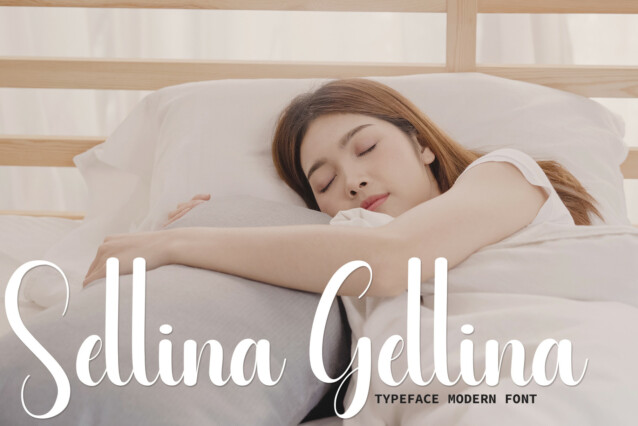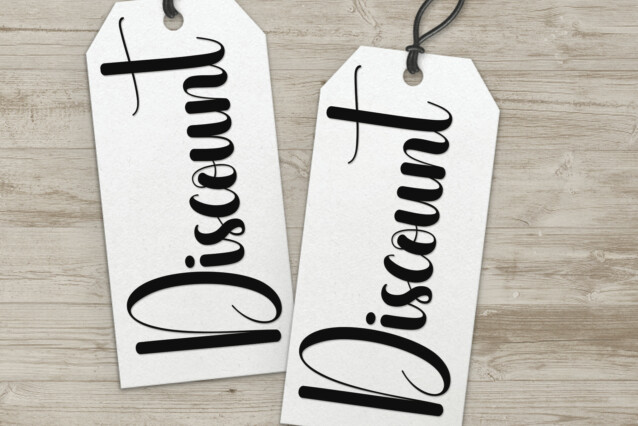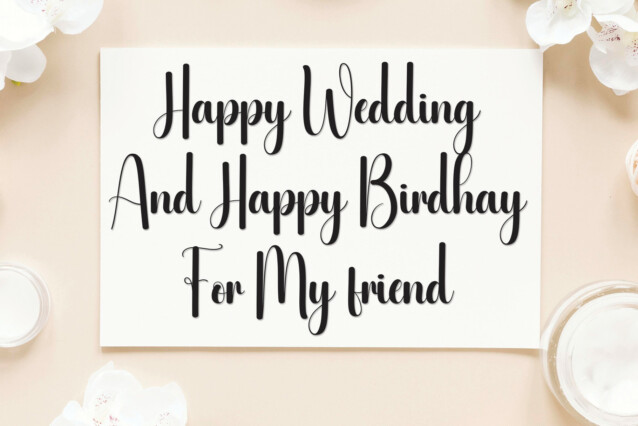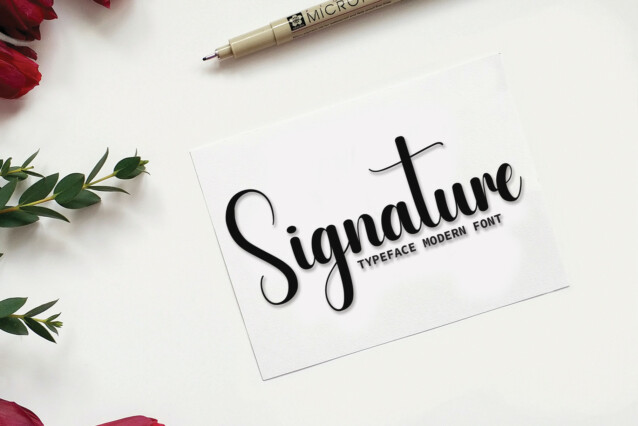
Earnestly Script Font
Earnestly Script Font is perfect for wall displays, wedding invitations, social media posts, logos, advertisements, product packaging, product designs, labels, photography, watermarks, invitations, stationery, and any project that requires a personalised touch.